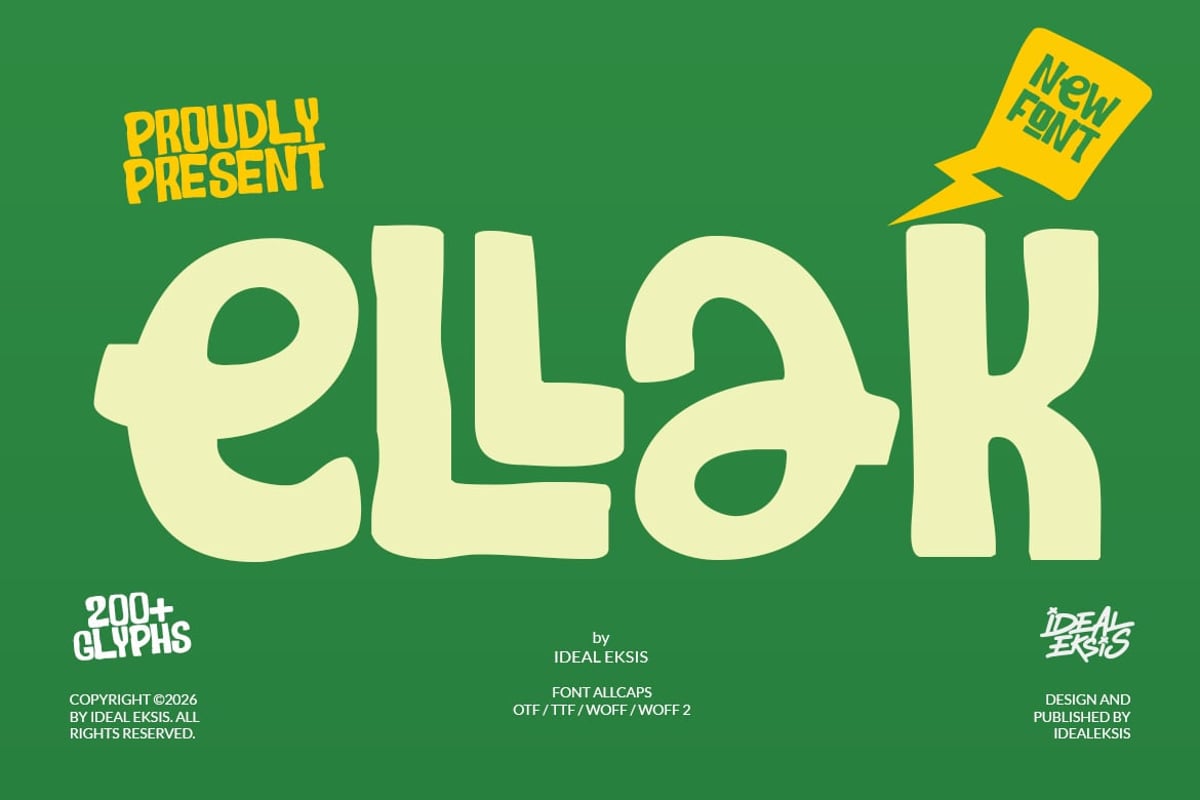
Ellak - Food Font
Make your food brand impossible to ignore with Ellak's heavy weight and playfully irregular design. Ellak is a high-impact display typeface characterized by its heavy weight and playful, irregular geometry that brings personality to any culinary project. In Package: OTF TTF WOFF WOFF2 Features: Uppercase (All Caps) Ligatures Numerals Punctuation Easy To Install Perfect For: Bakery and café branding Food and beverage logos Restaurant menus and signage Coffee shop and donut shop designs Food packa...